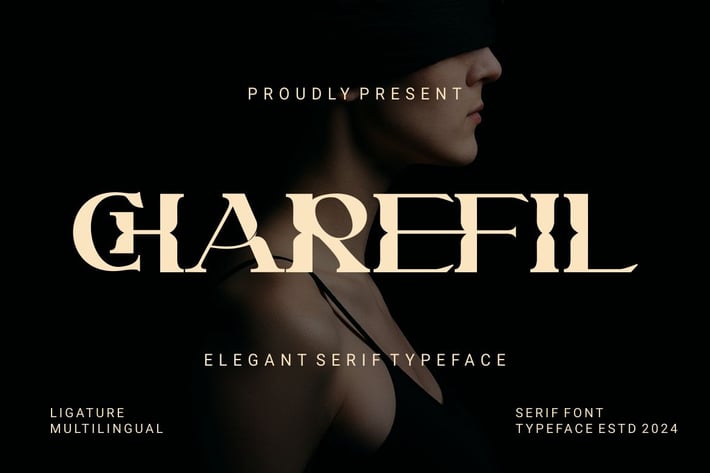
Charefil - Elegant Serif Typeface Font
Introducing our new product Charefil - Elegant Serif Typeface Font Modern Font
lowercase
ligature
multilingual